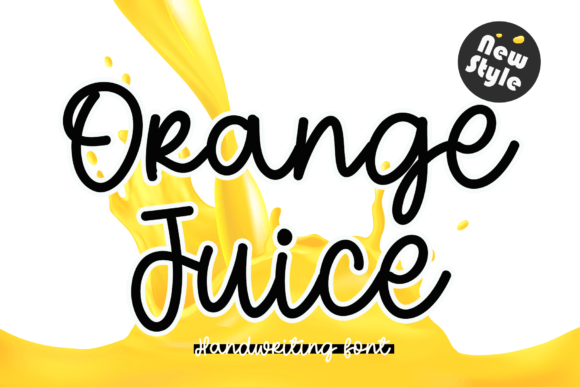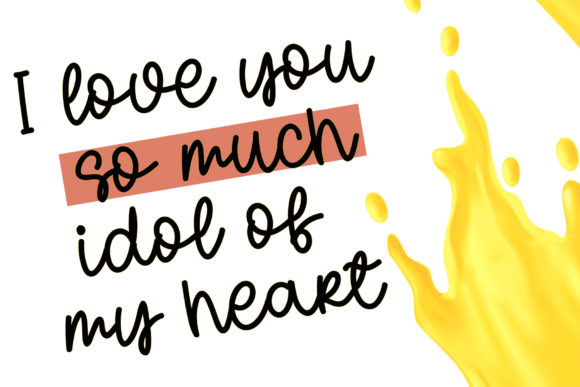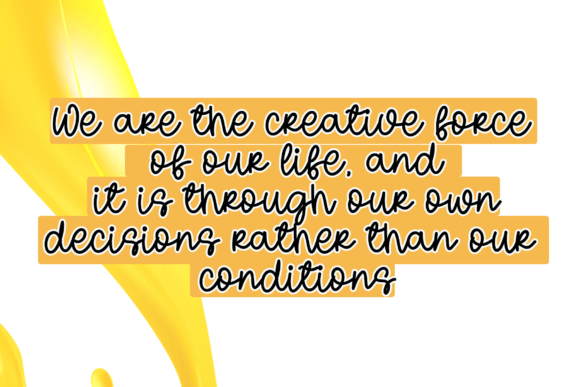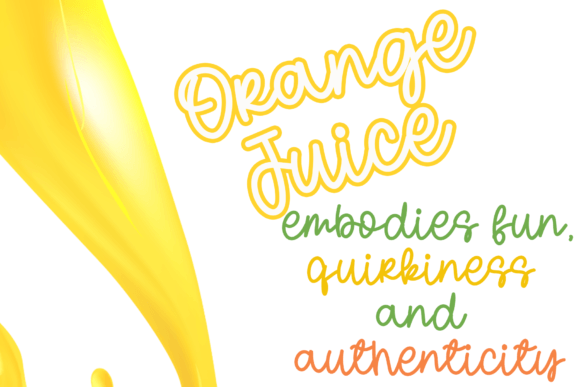
Orange Juice Font: A Playful Handwritten Font for Branding & Cricut
About the Orange Juice Font
Get ready to be inspired by Orange Juice Font, a fresh and dynamic typeface for modern creators. Orange Juice is an incredibly unique handwritten font. designed intent to become a true favorite, It is the best choice for creating eye-catching logos, branding, and quotes. Every letter has a unique and beautiful touch, which will make your design come alive!
Orange Juice’s playful, slightly quirky character makes it ideal for projects needing a friendly, approachable feel. It excels in headlines, short text blocks, and branding elements where its hand-drawn charm can shine. Consider it for logos, social media graphics, invitations, or packaging for products targeting a younger demographic. Avoid using it for large amounts of body text or UI elements; its irregularity would hinder readability.
Pairing Orange Juice with a clean sans-serif like Open Sans for body copy creates a strong contrast, balancing its hand-drawn informality with a sense of order. Alternatively, a classic serif like Garamond offers a sophisticated counterpoint, highlighting Orange Juice’s unique personality. For a more modern feel, geometric sans-serif fonts like Montserrat would provide a clean, structured complement.
Its overall personality is best described as friendly and approachable, with a touch of whimsy. It is not suitable for projects requiring a formal or serious tone.
Orange Juice Font Usage Examples
Orange Juice Font Example